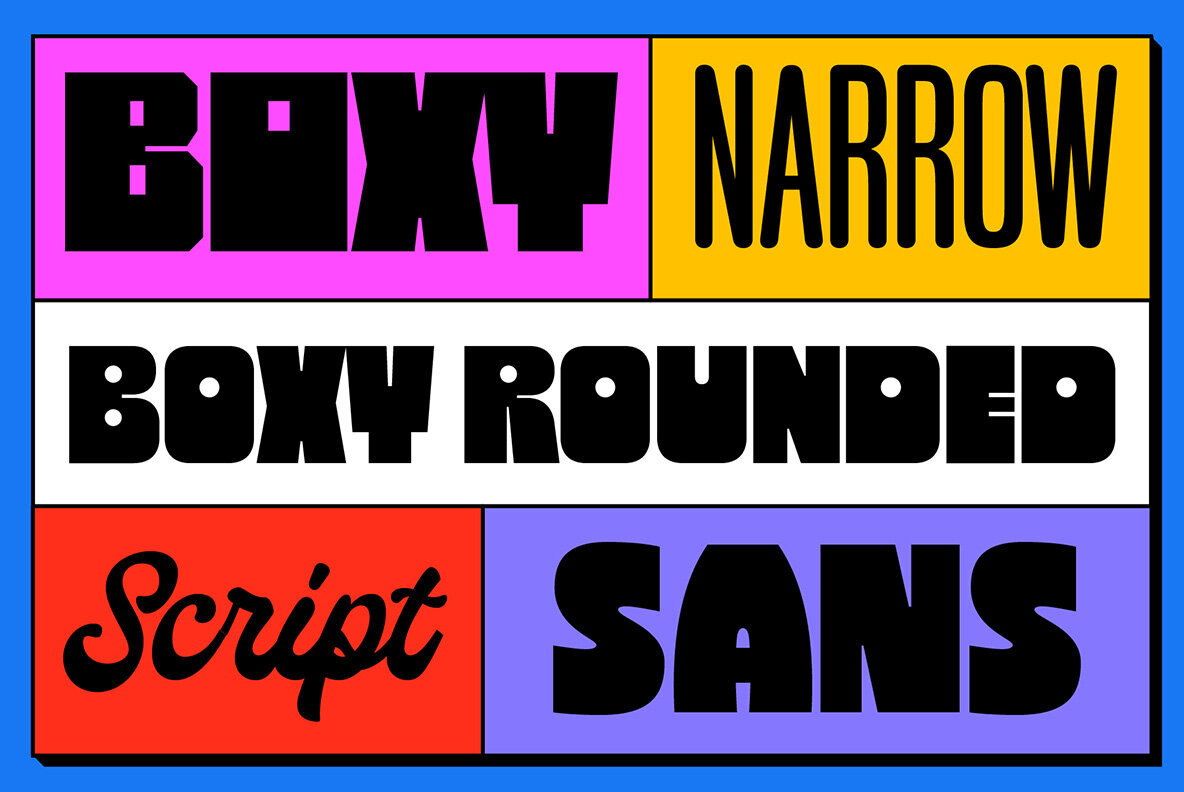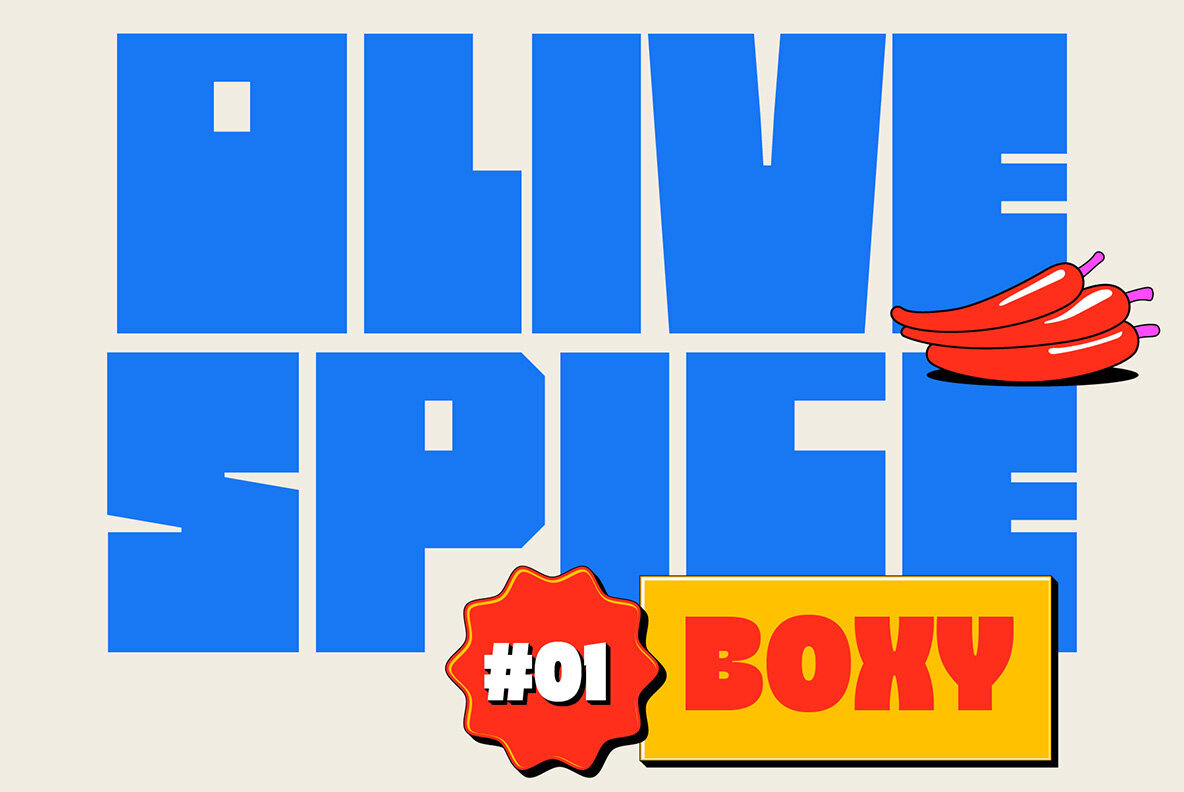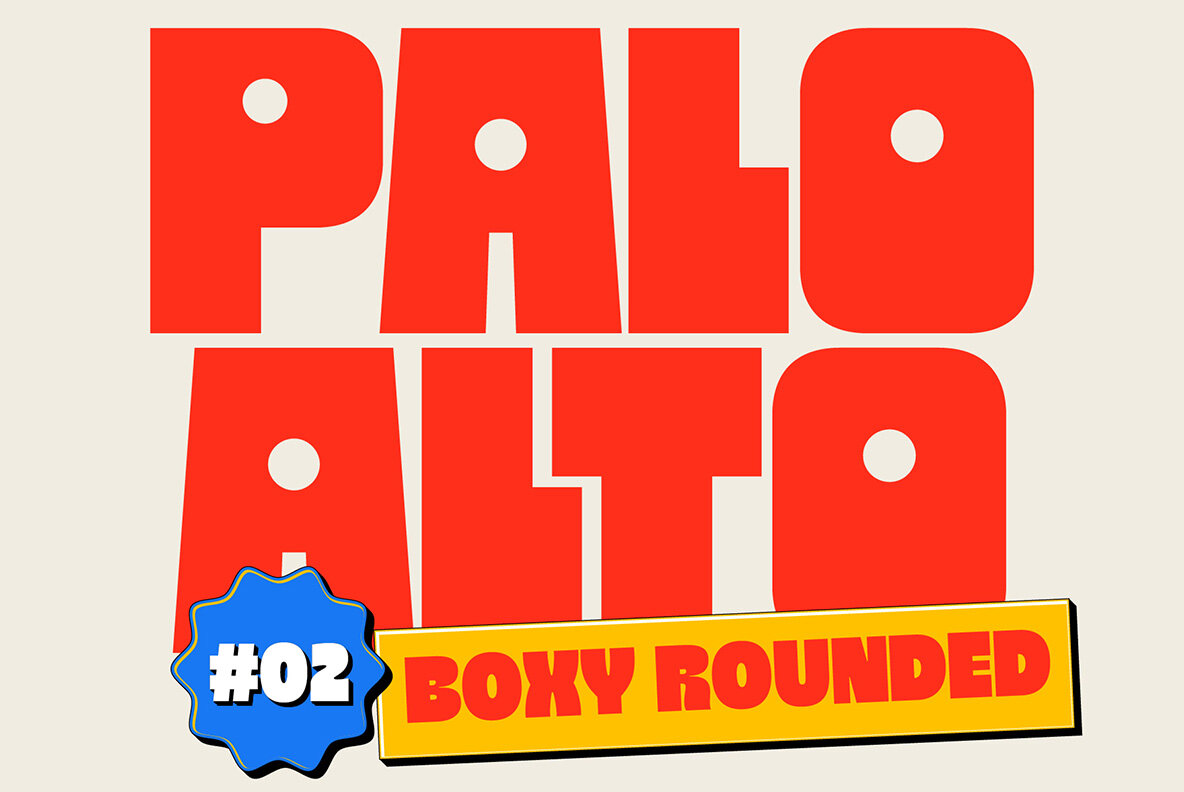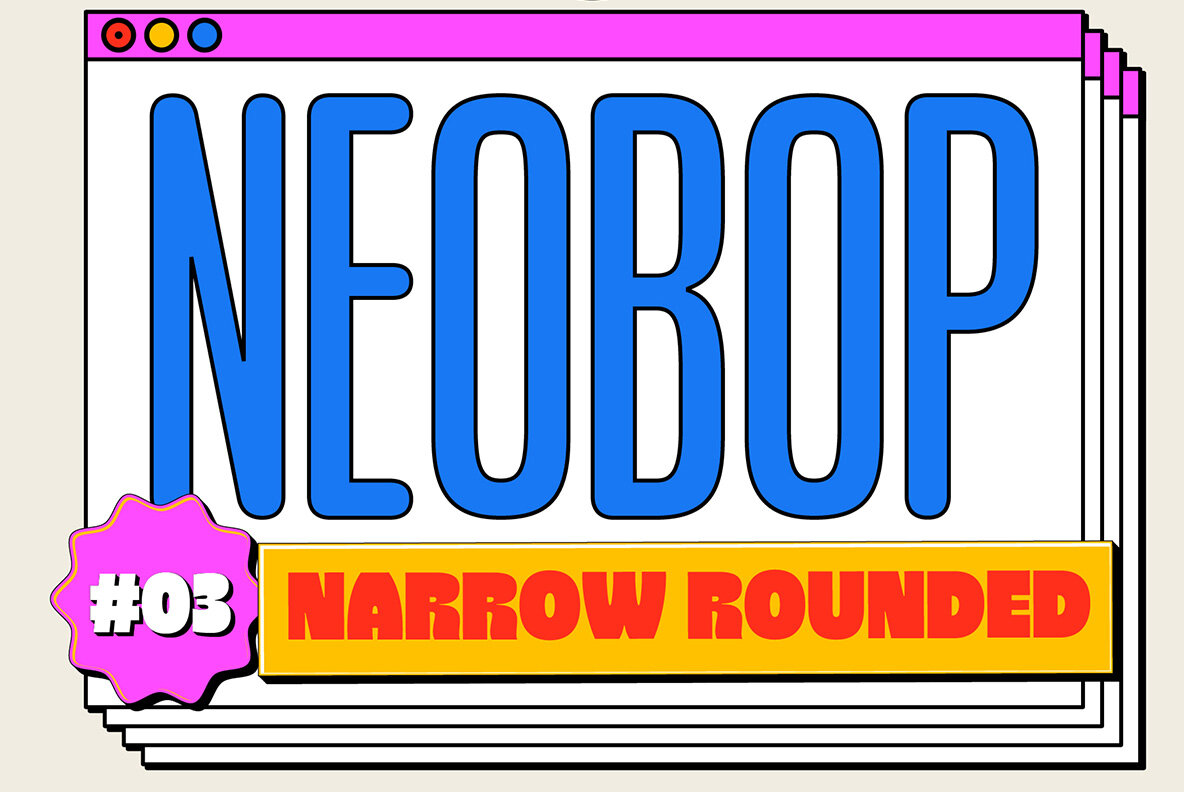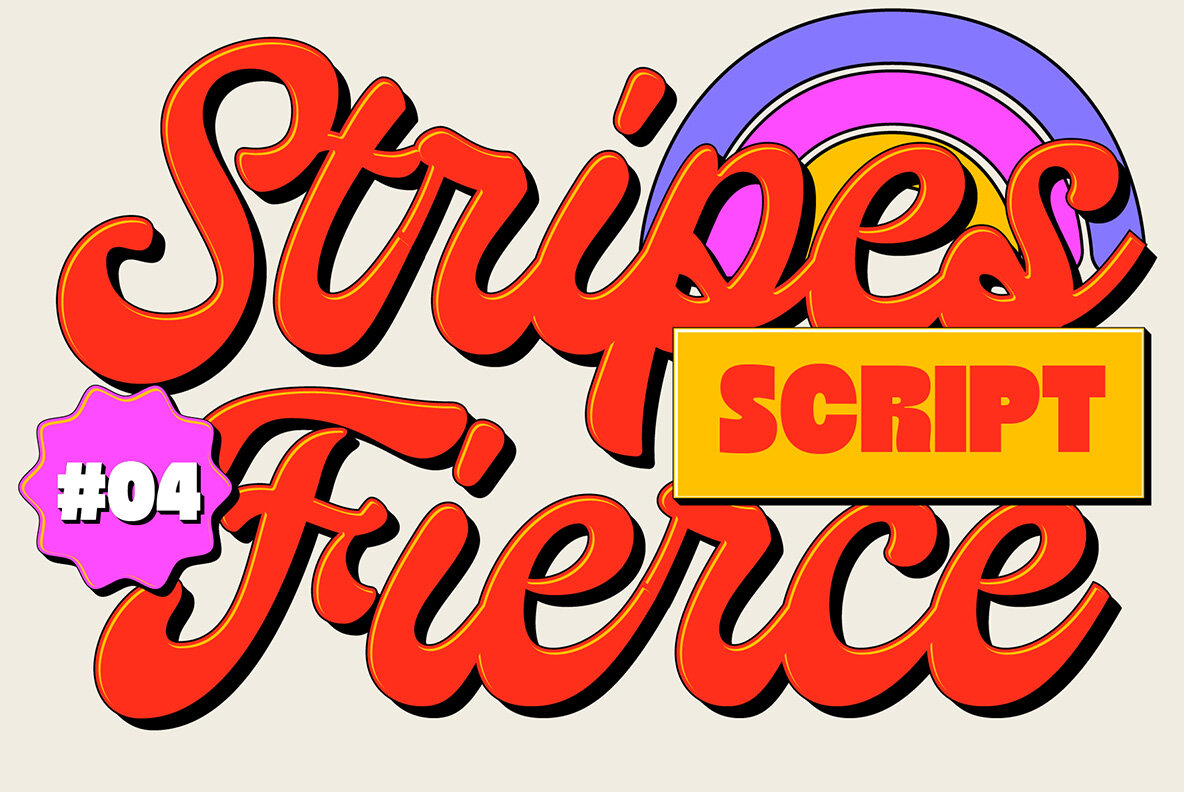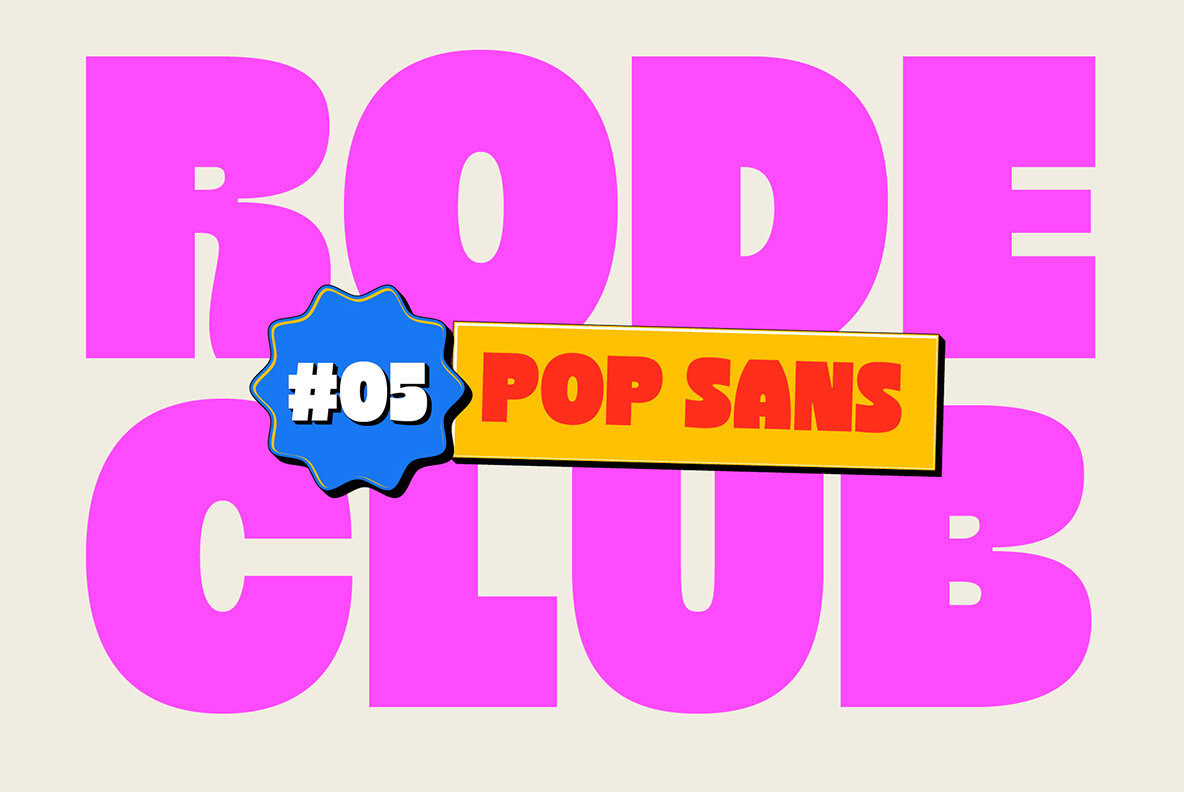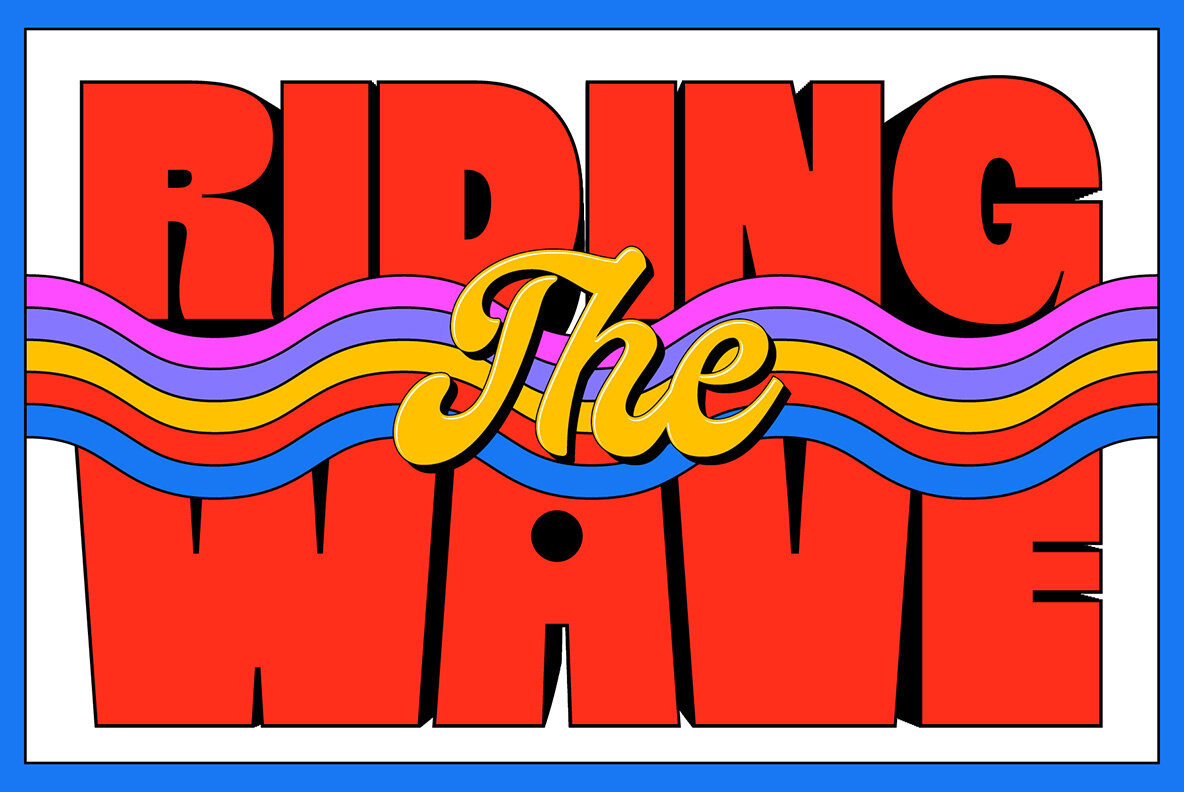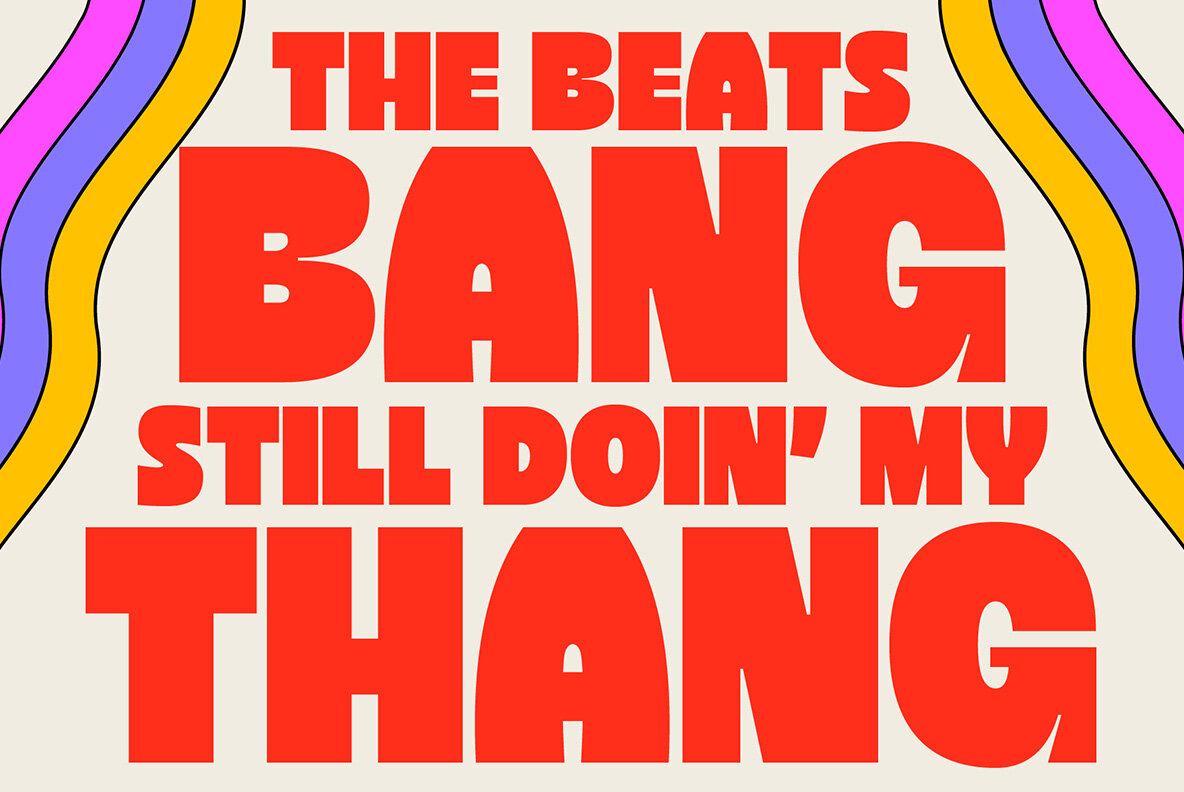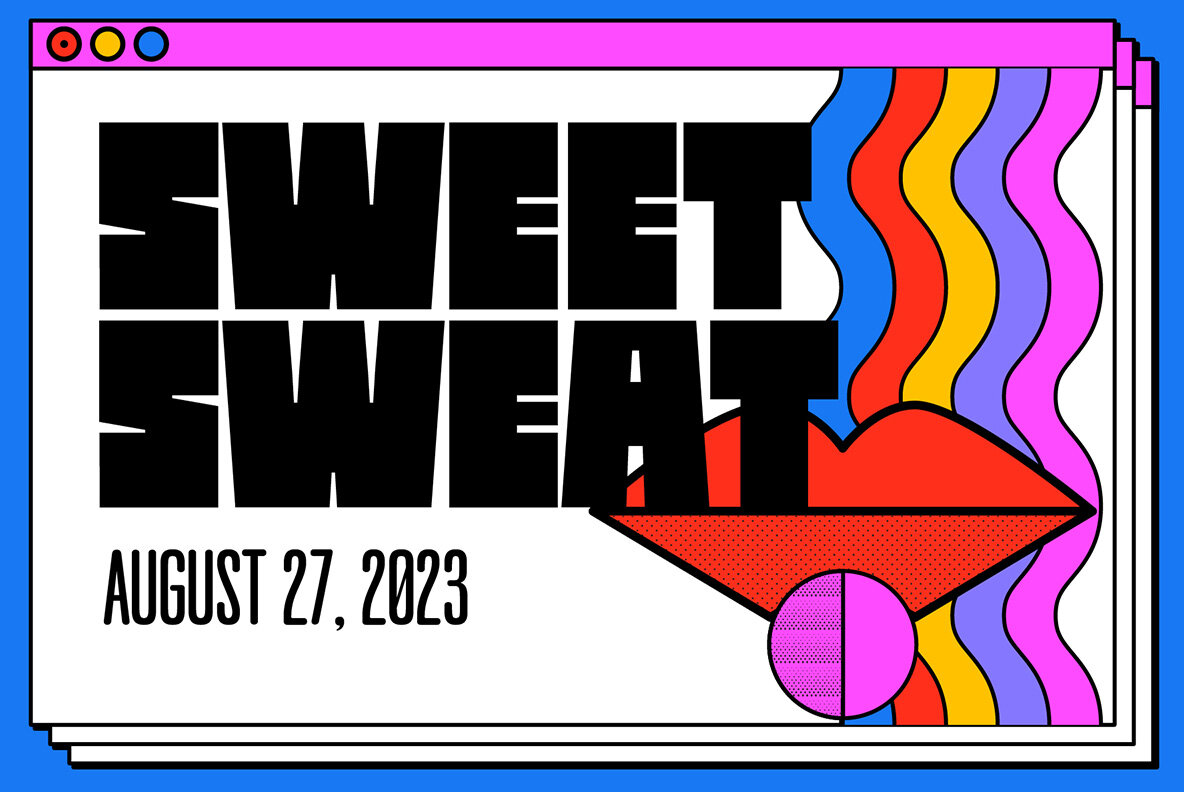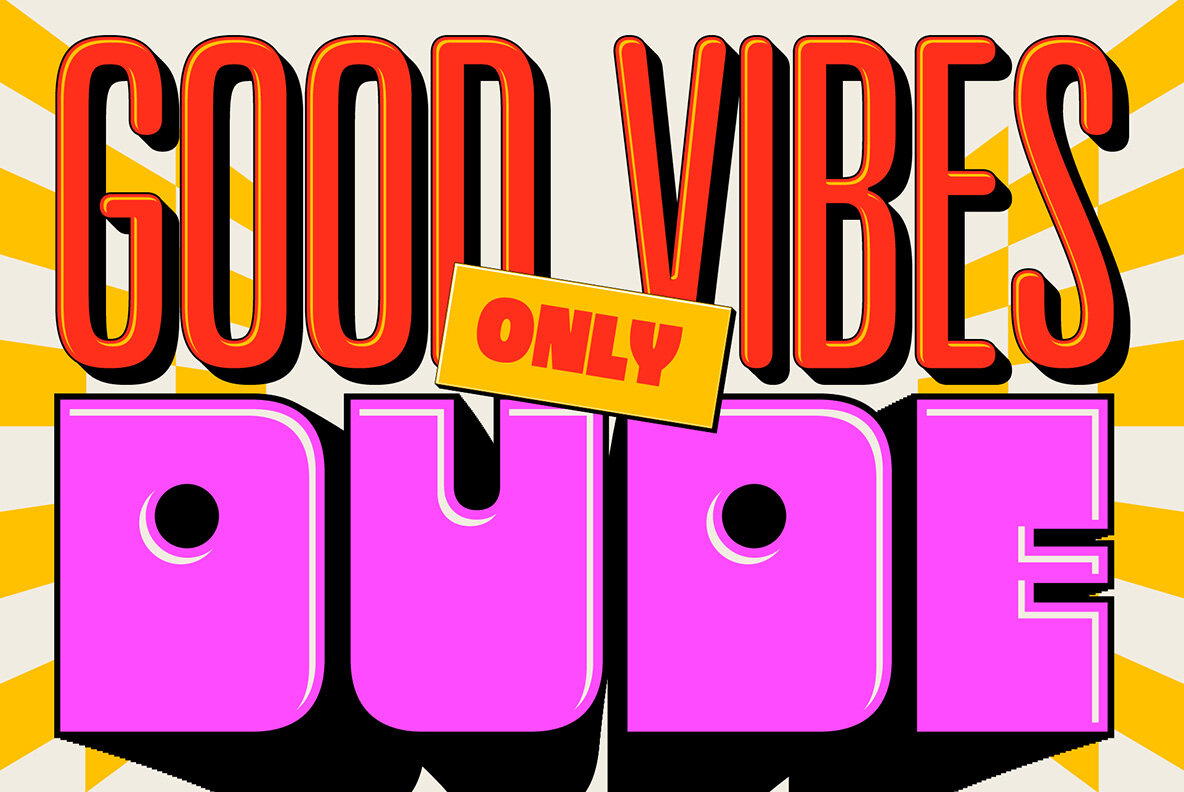
Popwave Font
Popwave Sans
Popwave Box
Popwave Narrow
Popwave Rounded
Popwave Script
Introducing Popwave - a vibrant and playful font pack containing 5 unique fonts that are perfect for adding a touch of modern pop and groovy style to your designs. This versatile font pack includes a boxy font, a boxy rounded font, a script font, a narrow font, and a sans-serif font - providing you with a range of options to choose from. The boxy font has a bold and boxy design that exudes a sense of confidence and strength, while the boxy rounded font features rounded edges that give it a more friendly and approachable feel. The script font is elegant and fancy, perfect for adding a touch of sophistication to your designs. The narrow font is sleek and modern, with a slender design that creates a sense of space and clarity. Lastly, the sans-serif font is simple and clean, making it perfect for adding a modern touch to any design. Each font in the Popwave pack has been carefully designed to create a fun and vibrant style that's perfect for catching the eye. The fonts are playful and modern, with a touch of retro charm that makes them perfect for a variety of projects. The Popwave font pack also supports multiple languages, making it the perfect choice for designers who need to create designs for a global audience. So whether you're designing for print or digital media, the Popwave font pack is the perfect choice for creating modern, fun, and playful designs that are sure to stand out.